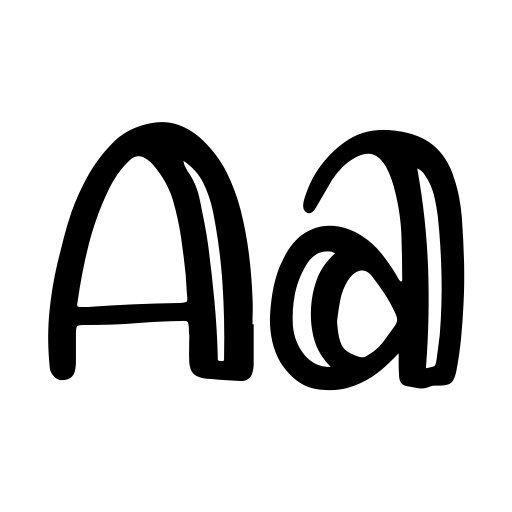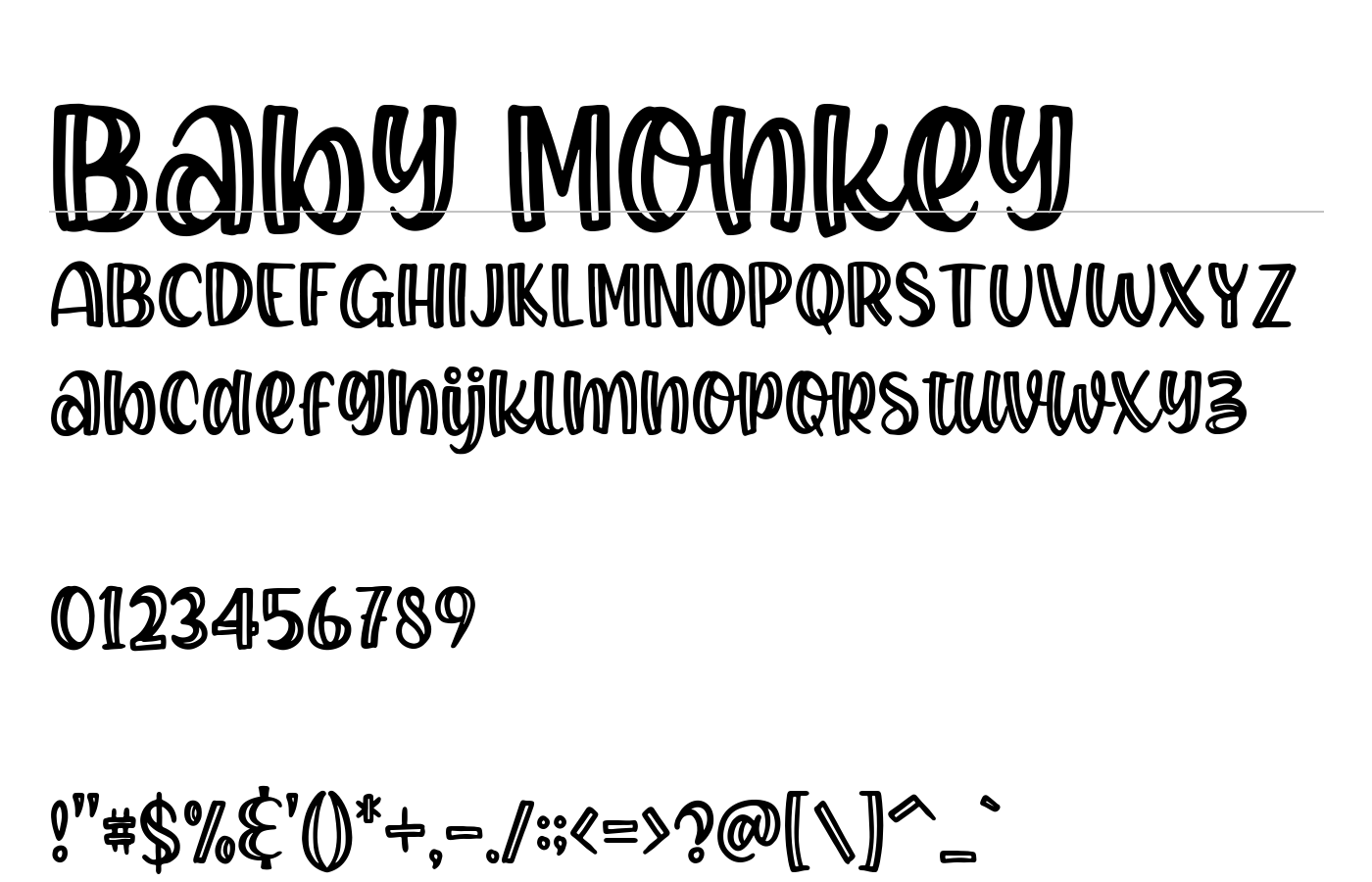
Baby Monkey Font is a playful and informal handwritten sans serif with a lively, slightly condensed style and generous rounded strokes. Its tall x-height and quirky, double-story letterforms give it a friendly and approachable personality, making it ideal for children's projects, casual branding, or fun headlines. This font’s charming, whimsical look works well where a lighthearted and creative tone is desired.
Baby Monkey Font
About Baby Monkey Font
| Font family | Baby Monkey Font |